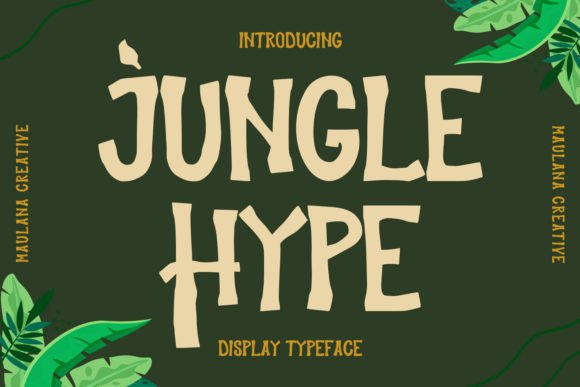
Unveil the Untamed Spirit of Expression with Jungle Hype Font: Your Gateway to Daring Designs
Immerse yourself in the untamed realm of creativity with Jungle Hype Font, the display typeface that ignites your imagination and unleashes your inner artist. This font is not just a collection of letters; it's an invitation to embark on a visual adventure, where every character dances with boldness and energy.
Step into the world of lettering tattoos and let your designs roar with unrestrained creativity. Jungle Hype Font's bold strokes and playful characters capture the essence of wild artistry, allowing you to create tattoos that speak volumes. With every stroke, you'll feel the pulse of the jungle, the thrill of the hunt, and the untamed beauty of nature.
Beyond tattoos, Jungle Hype Font's versatility knows no bounds. Its captivating presence graces social media posts, movie and book titles, logos, and a myriad of other creative projects. Its unique ligatures and alternates add an extra layer of intrigue, allowing you to craft designs that stand out from the crowd and leave a lasting impression.
With Jungle Hype Font, you'll discover a font that's more than just a tool; it's a muse, a companion on your creative journey. Its energy is contagious, inspiring you to push boundaries and explore uncharted territories of design. Embrace the spirit of the jungle, let your creativity run wild, and watch as Jungle Hype Font transforms your visions into stunning realities.